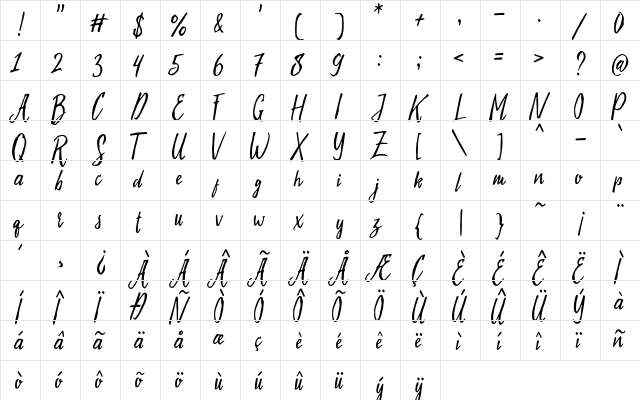
Evelyne Script Free Demo Regular
| Foundry | Queentype |
| Designer | Queentype |
Design Context for Evelyne Script Free Demo Typeface
Evelyne Script Free Demo flows with the natural rhythm of handwritten lettering, making it ideal for designs that call for warmth and personal expression.
Font Pairing: Combine Evelyne Script Free Demo with a simple geometric sans for maximum contrast — the tension between flowing curves and clean structure is a classic typographic pairing.
Pro Tip: Use Evelyne Script Free Demo for short runs of text — names, titles, or taglines. Extended body copy in script faces tires the eye quickly.